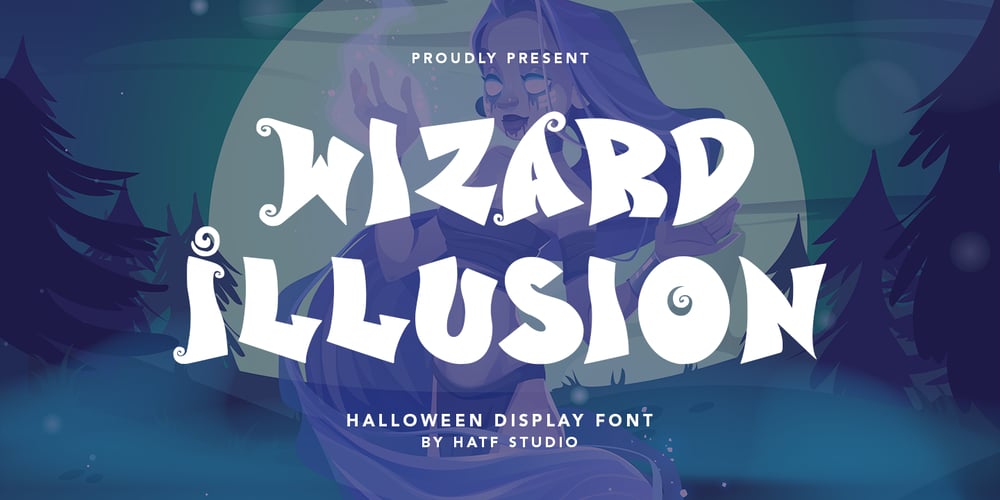
Wizard Illusion Font Family was designed by Asep Rendi and published by Hatftype. Wizard Illusion contains 1 styles and family package options. Wizard Illusion is a halloween display font that is inspired by gothic and horror style because its shape is very unique and is perfect for any project that you will use with this theme.Features :1.Uppercase & Lowercase2.Multilingual support3.Number4.Symbol5.Punctuation6.Support in Mac and Windows OS -Support in design application (photoshop, illustrator, and more).I really hope you enjoy it.